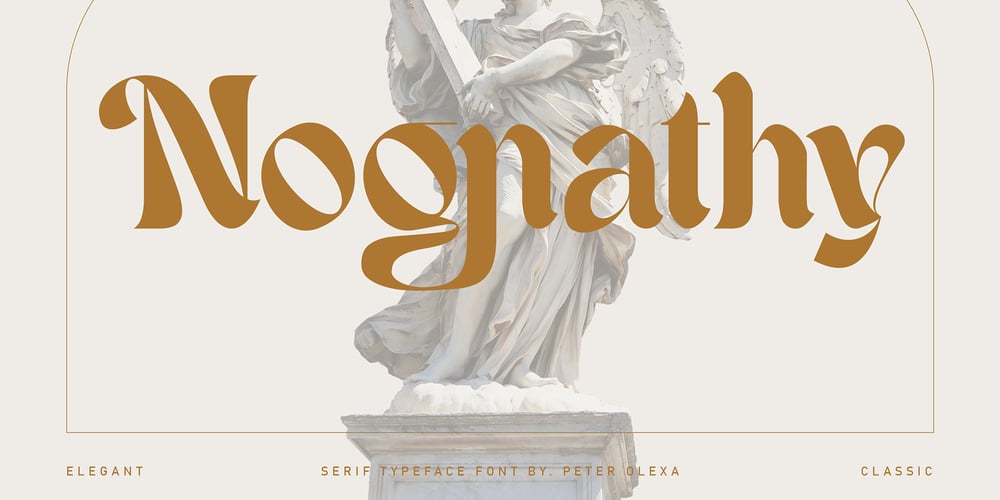
Nognathy Font Family was designed by Peter Olexa and published by Deeezy. Nognathy contains 1 styles and family package options. Trendy, artistic, unique & modern style serif font for your fancy projects. Elegant, fashion and blackletter style on Nognathy font will be great for any branding project. Lot of alternates and ligatures will help you to create unique and original logo design or website header! Enjoy ๐ Multilingual support Alternate characters & ligatures Web font Great for modern branding projects!